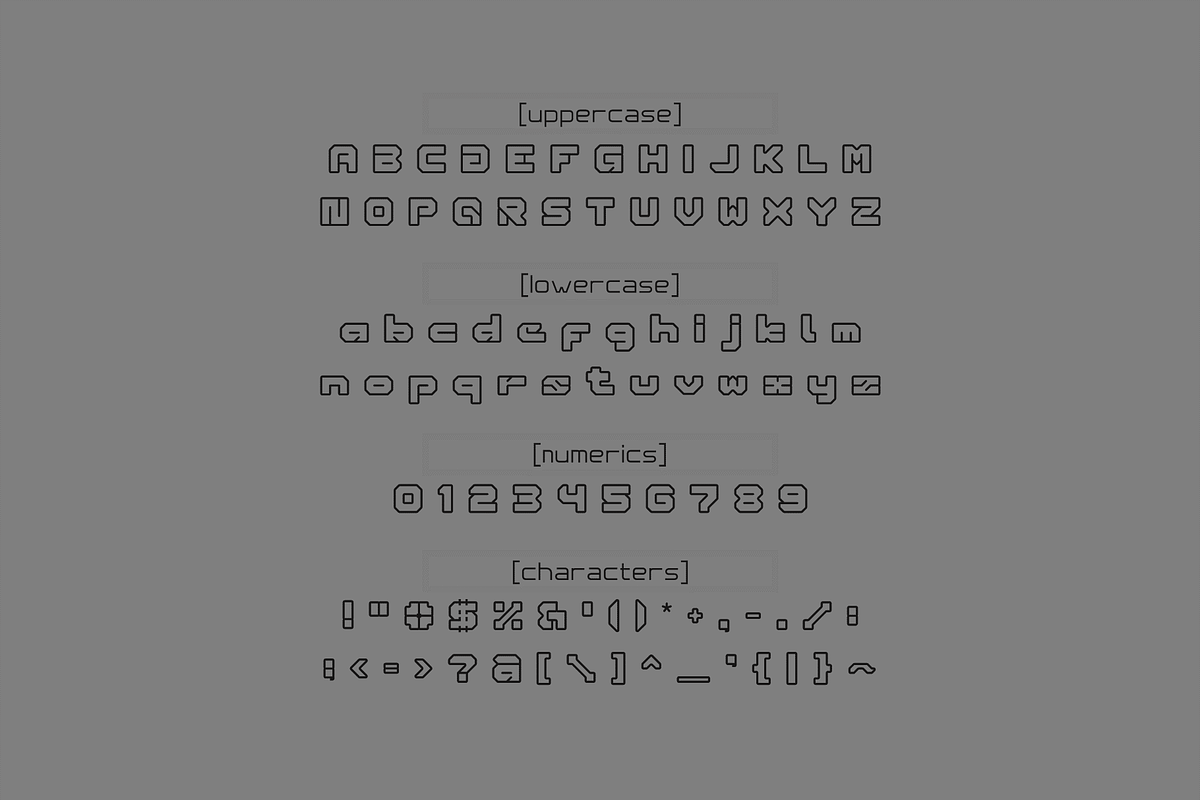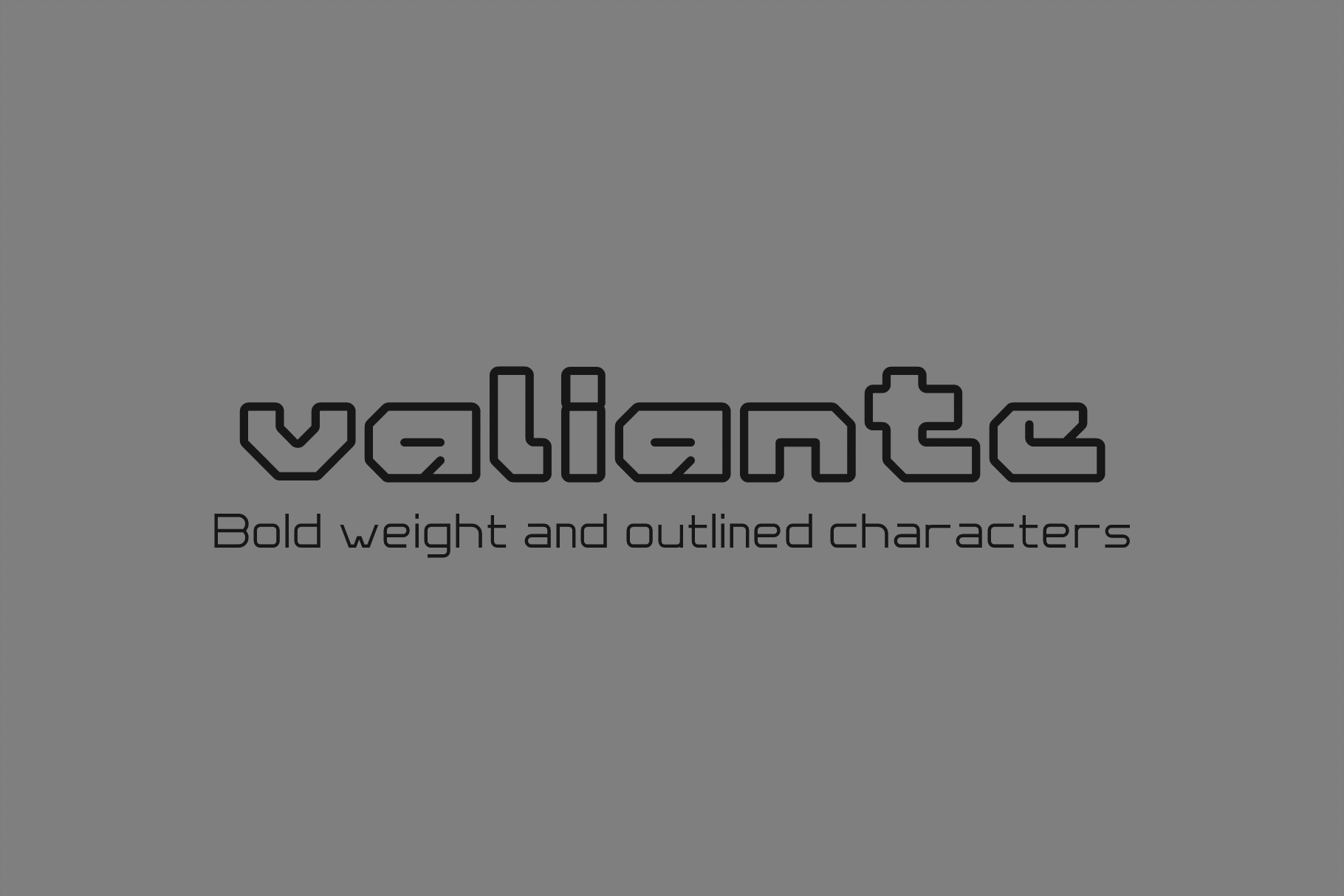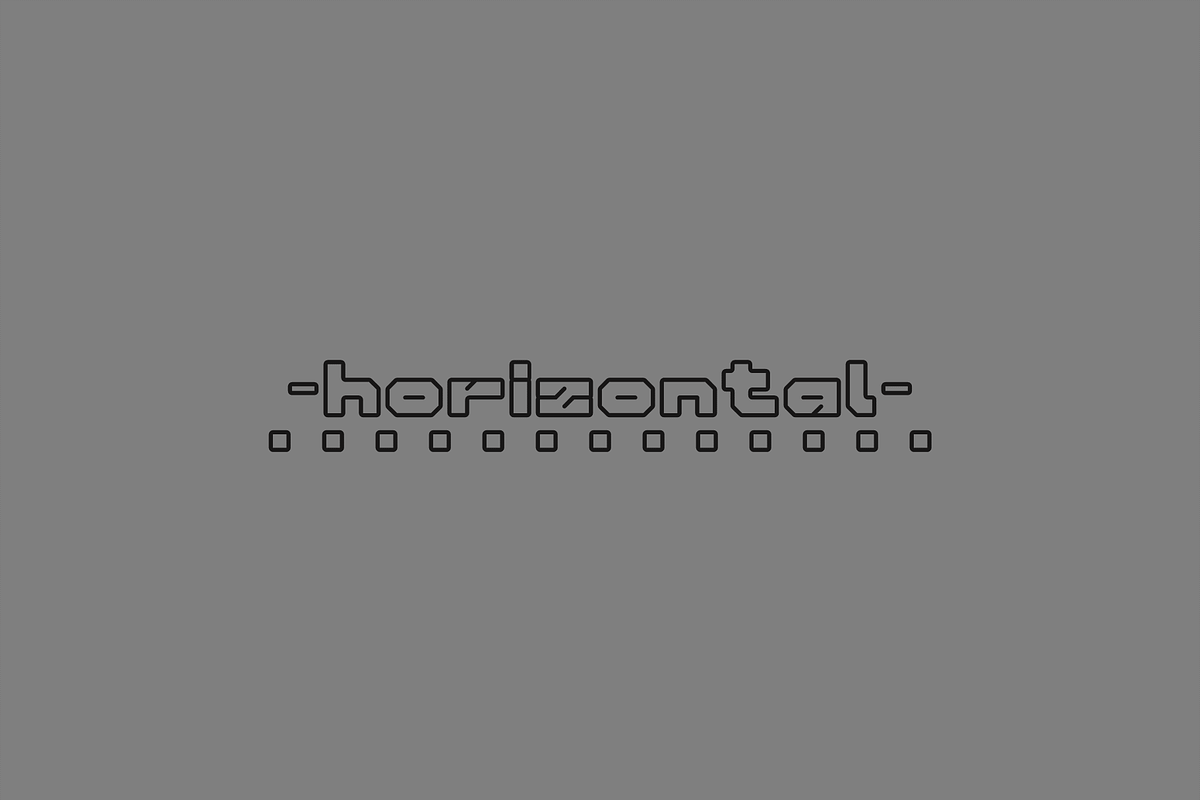
valiante font
Valiante font is a style of typeface where the characters have both a bold weight and an outlined appearance. This combination results in characters that are visually emphasized through both increased thickness of the strokes and the presence of an outline around each character. The outline adds an additional visual element, creating a distinctive and bold design. Key characteristics of an outline bold font include:Bold Weight, Outline, Emphasis, Contrast, and Aesthetic Appeal. Valiante font can be used in a range of design projects, including logos, headings, titles, and other elements where a strong visual impact is desired. Designers often appreciate the versatility of these fonts in creating modern and stylish typographic treatments.